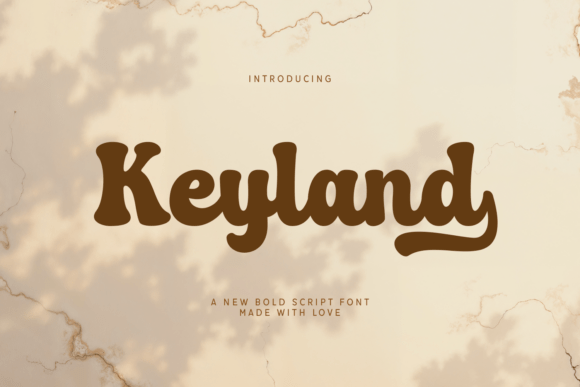
Introducing Keyland Font: A Bold Script Font with a Warm, Retro Vibe
Are you looking for a font that can add a touch of personality to your designs? Look no further than Keyland Font, a bold script font with a warm, retro vibe that’s perfect for a variety of projects. In this article, we’ll take a closer look at Keyland Font, its features, and how you can use it to elevate your designs.
What is Keyland Font?
Keyland Font is a bold script font that’s designed to bring a sense of fun and confidence to your designs. With its thick strokes and smooth curves, it’s the perfect choice for projects that need a strong personality. Whether you’re working on a logo design, packaging, poster, or any other project, Keyland Font is sure to make a statement.
Features of Keyland Font
So, what makes Keyland Font so special? Here are just a few of its key features:
- Bold and Confident: Keyland Font is a bold script font that’s designed to make a statement. Its thick strokes and smooth curves give it a confident and assertive personality that’s perfect for projects that need to stand out.
- Warm and Retro: Keyland Font has a warm, retro vibe that’s reminiscent of classic design from the 1950s and 60s. Its smooth curves and rounded edges give it a friendly and approachable feel that’s perfect for projects that need a touch of nostalgia.
- Versatile: Keyland Font is a versatile font that can be used for a wide range of projects. Whether you’re working on a logo design, packaging, poster, or any other project, Keyland Font is sure to fit the bill.
How to Use Keyland Font
Now that we’ve covered the features of Keyland Font, let’s talk about how to use it. Here are a few ideas to get you started:
- Logo Design: Keyland Font is perfect for logo designs that need a bold and confident personality. Use it to create a logo that’s eye-catching and memorable.
- Packaging: Add a touch of personality to your packaging with Keyland Font. Its warm and retro vibe makes it perfect for food labels, product packaging, and more.
- Posters: Create eye-catching posters with Keyland Font. Its bold and confident personality makes it perfect for promoting events, products, or services.
- Social Media: Use Keyland Font to add a touch of personality to your social media posts. Its fun and confident vibe makes it perfect for creating engaging and shareable content.
Benefits of Using Keyland Font
So, why should you use Keyland Font for your next project? Here are just a few benefits:
- Unique Personality: Keyland Font has a unique personality that’s sure to make your designs stand out. Its bold and confident vibe makes it perfect for projects that need a strong personality.
- Easy to Read: Despite its bold and confident personality, Keyland Font is easy to read and understand. Its smooth curves and rounded edges make it perfect for projects that need to communicate a message clearly.
- Versatile: Keyland Font is a versatile font that can be used for a wide range of projects. Whether you’re working on a logo design, packaging, poster, or any other project, Keyland Font is sure to fit the bill.
Tips for Using Keyland Font
Here are a few tips for using Keyland Font:
- Use it Boldly: Keyland Font is a bold script font, so don’t be afraid to use it boldly. Experiment with different sizes and colors to create a statement piece.
- Pair it with Other Fonts: Keyland Font can be paired with other fonts to create a unique and interesting combination. Try pairing it with a clean sans-serif font for a contrasting look.
- Experiment with Colors: Keyland Font looks great in a variety of colors. Experiment with different colors and gradients to find the perfect look for your project.
In conclusion, Keyland Font is a bold script font with a warm, retro vibe that’s perfect for a variety of projects. Its thick strokes and smooth curves give it a confident and assertive personality that’s sure to make your designs stand out. With its versatility, ease of use, and unique personality, Keyland Font is a great choice for designers looking to add a touch of personality to their work.